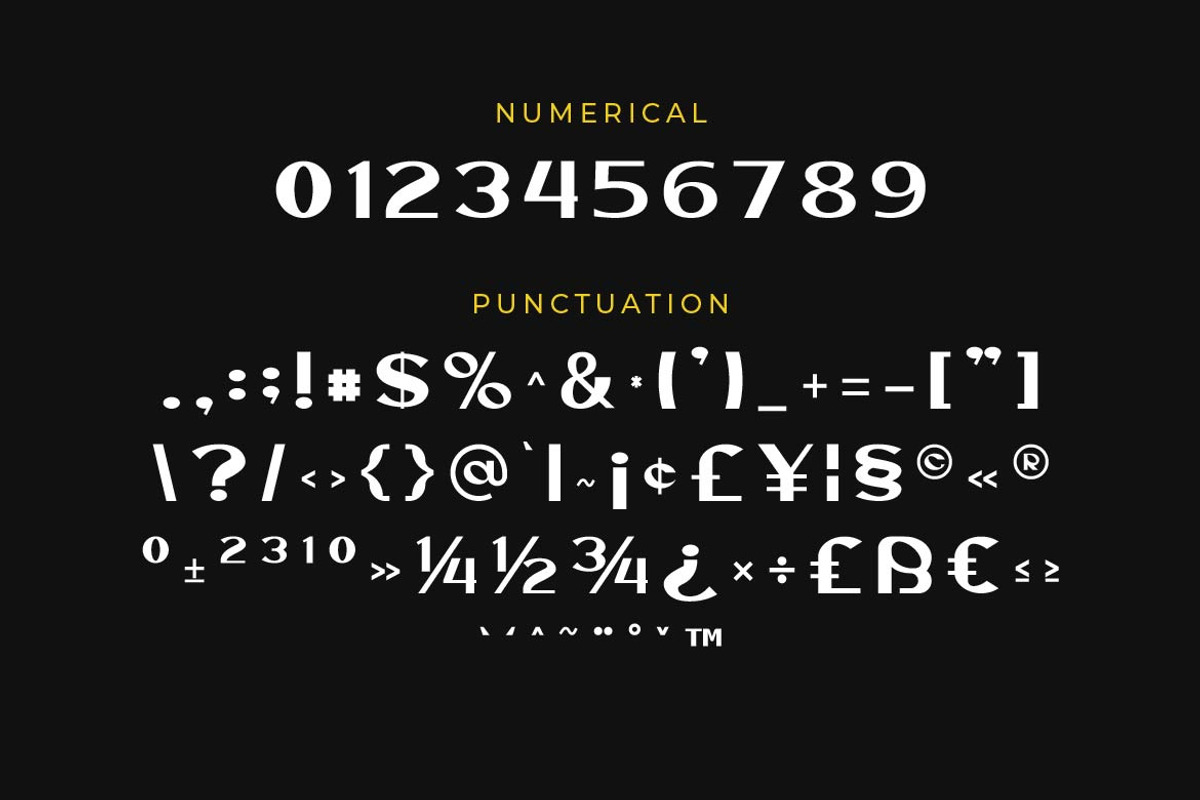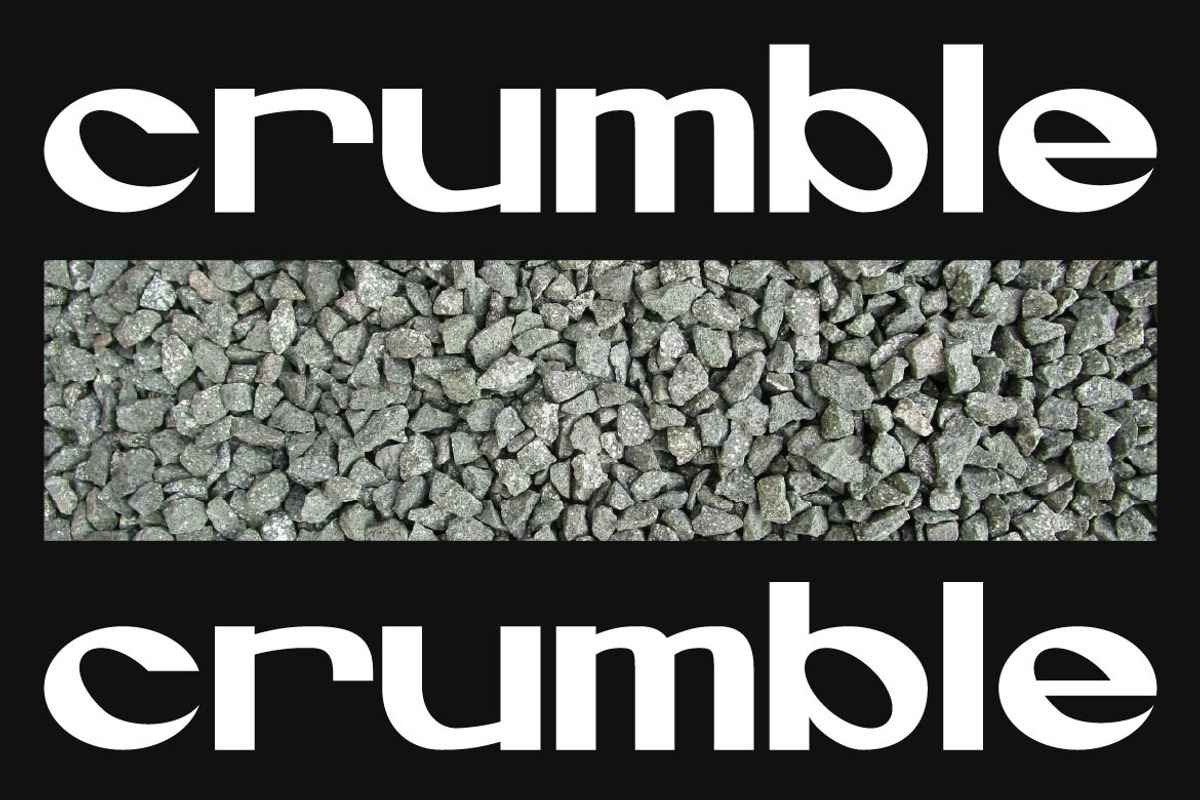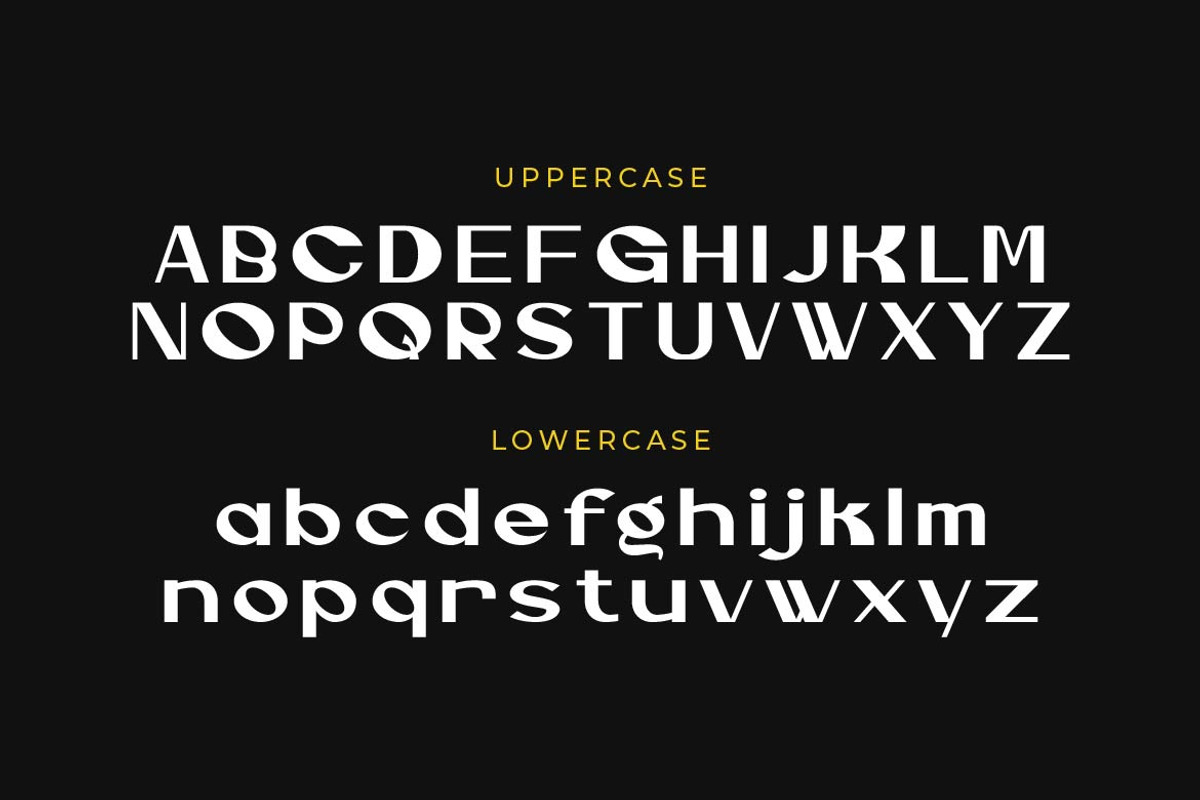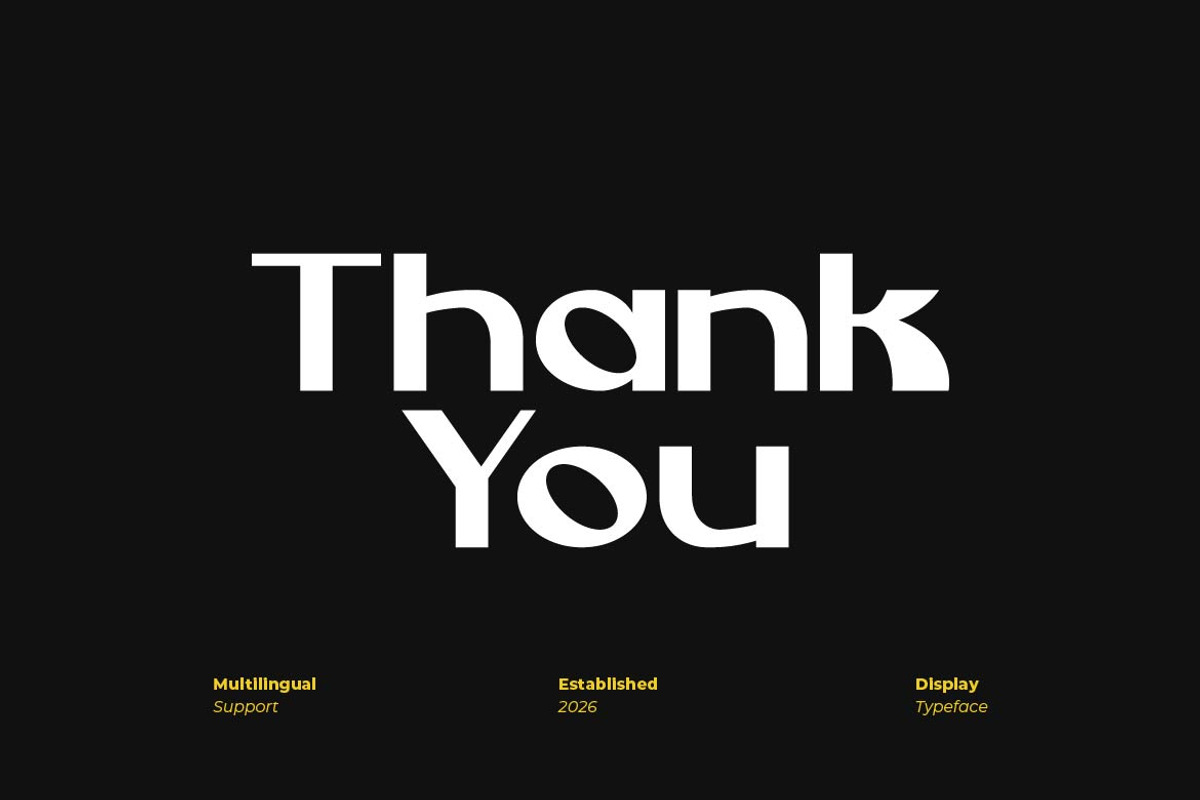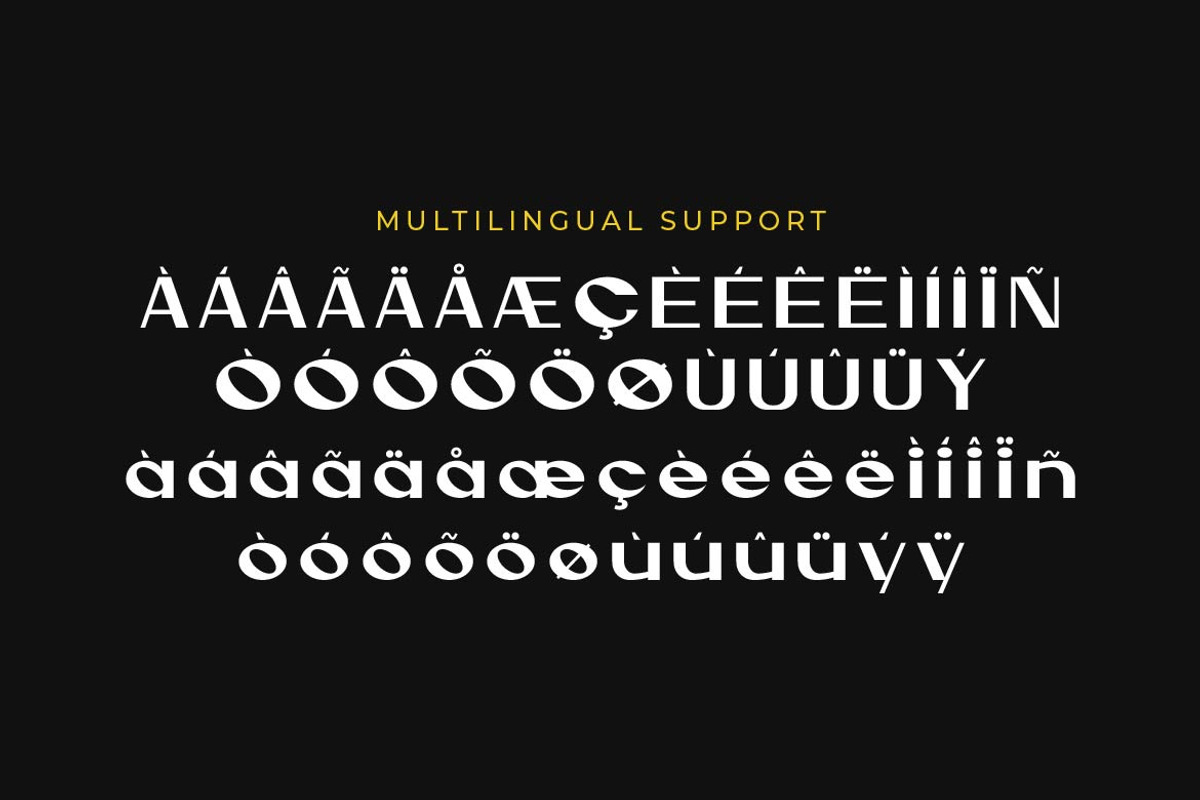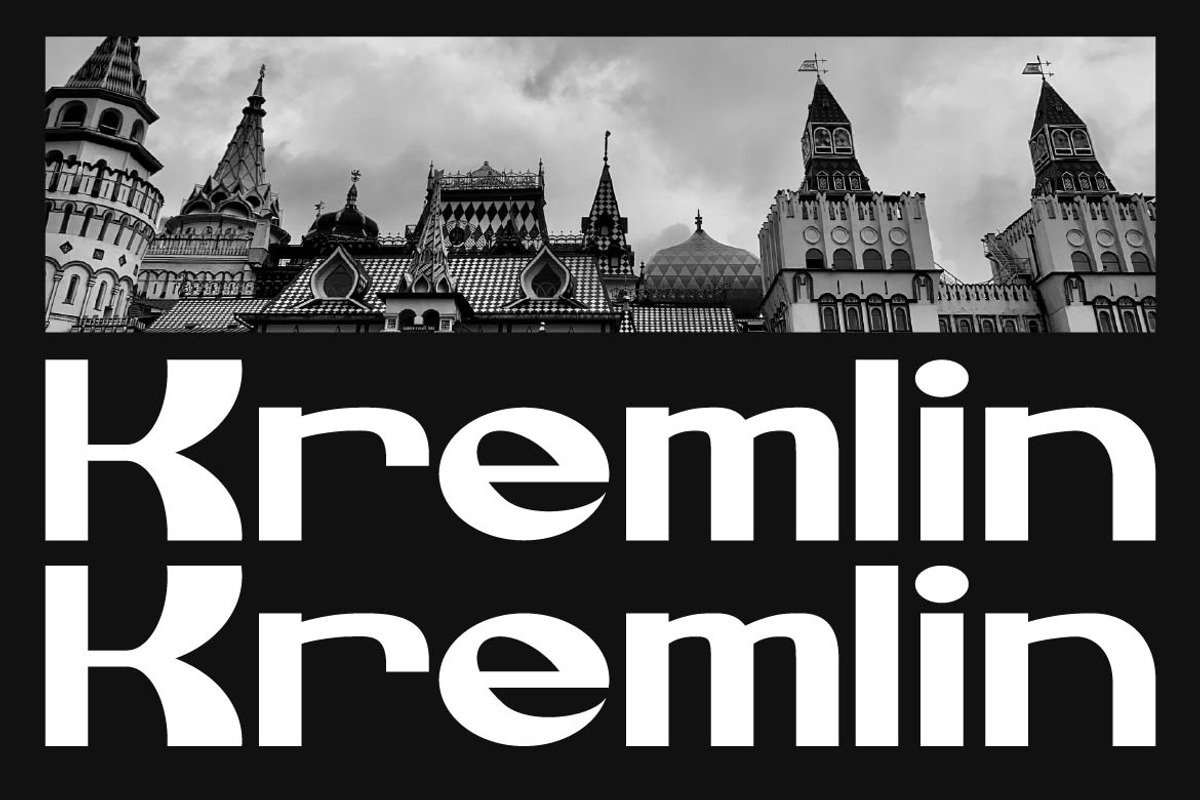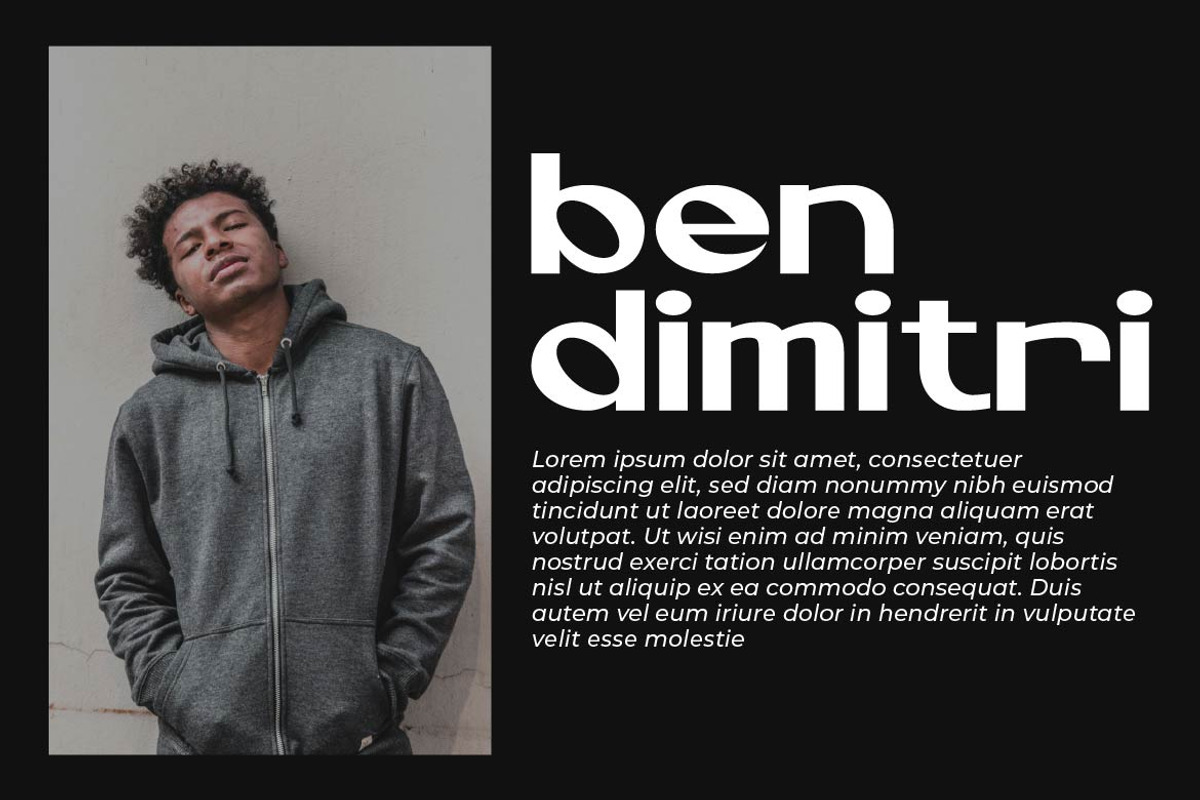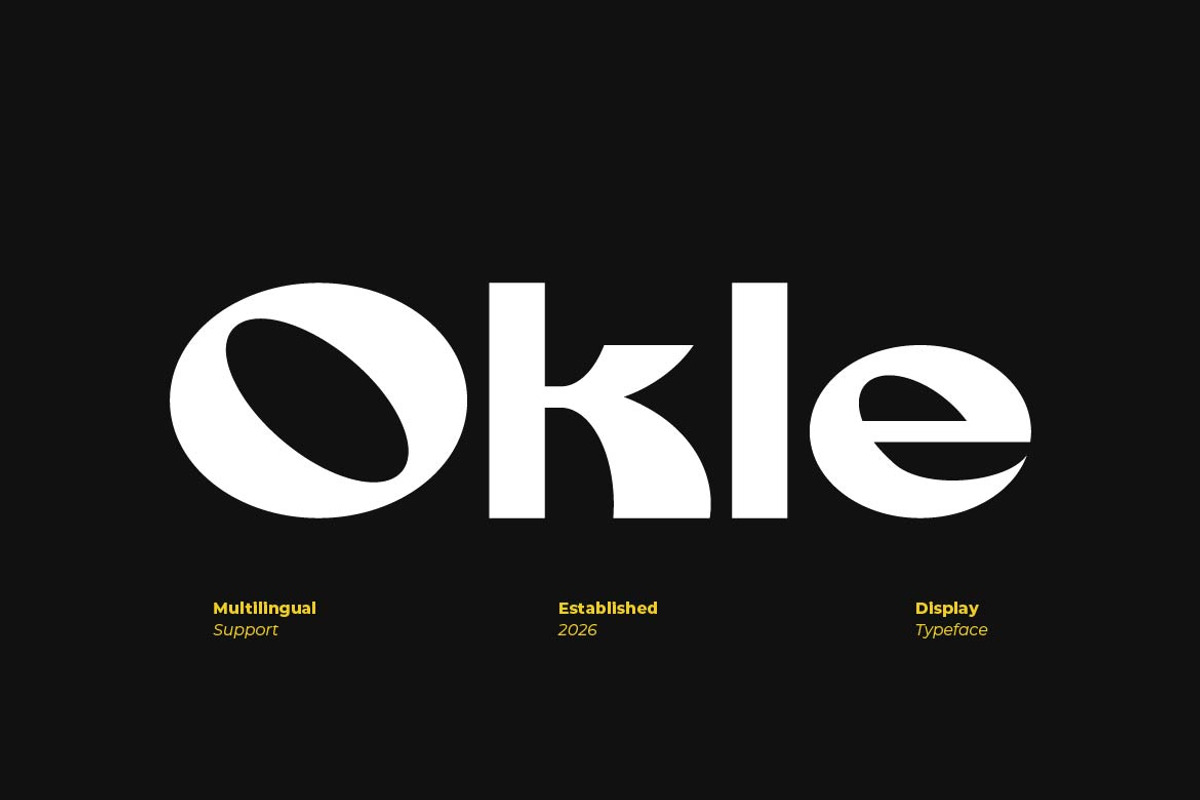
Okle – Creative Display Font
Okle is a creative display typeface designed to bring bold personality and visual uniqueness to your designs. With distinctive letterforms, expressive shapes, and a modern creative style, Okle helps your typography stand out in any composition.
\- Ton of glyphs